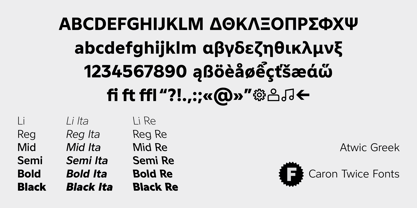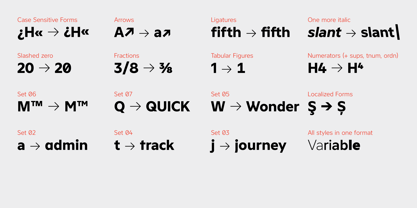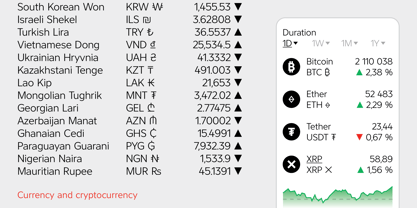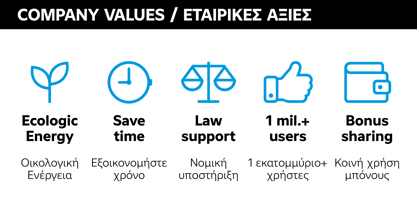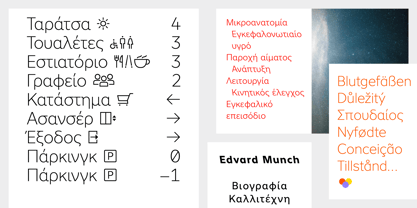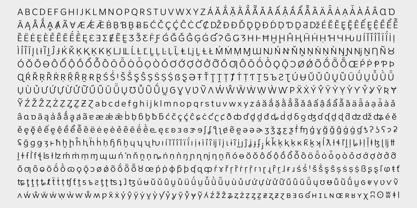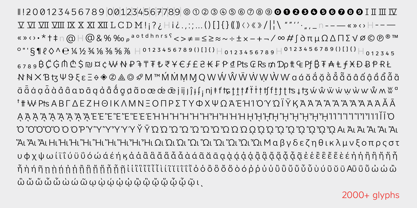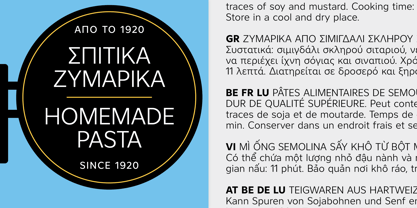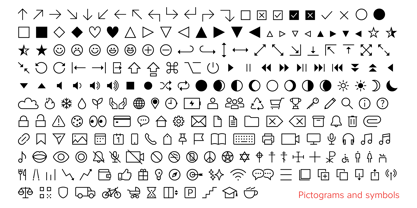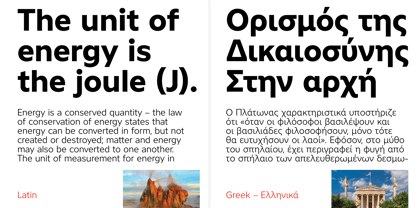
Atwic Greek
The Atwic Greek Font Family was designed by Martin Činčár and published by Caron twice. Atwic Greek contains 19 styles and family package options. More about this family
Atwic Greek is a clean, simple sans serif typeface whose character aligns with Frutiger, Gill Sans, and Segoe. Today, the sans serif is a modern staple and arguably the defining visual language of contemporary text communication. Containing more than 2,000 characters, Atwic Greek supports two writing systems: Latin and Greek. It also covers Vietnamese, Pan-African Latin, the International Phonetic Alphabet (IPA), polytonic Greek, national currency and cryptocurrency symbols, and pictograms (icons). Atwic Greek is well suited for neutral, universal use across both print and digital media. It performs reliably in posters, headlines, brand identities, websites, mobile apps, and wayfinding systems. For continuous text, we recommend the Regular and Bold styles; the high x-height and open endstrokes ensure good readability at smaller point sizes and when viewed from a distance. For larger point sizes, such as in posters and headlines, we recommend the Light and Black styles. Atwic Greek includes a range of style alternatives. Italics and Reverse Italics. A full phonetic alphabet, used in dictionaries to transcribe pronunciation. These features are complemented by a set of pictograms that support information navigation and can be used in website interfaces, chats, music and video players, wayfinding systems in buildings, and even as expressions of a brand’s values.